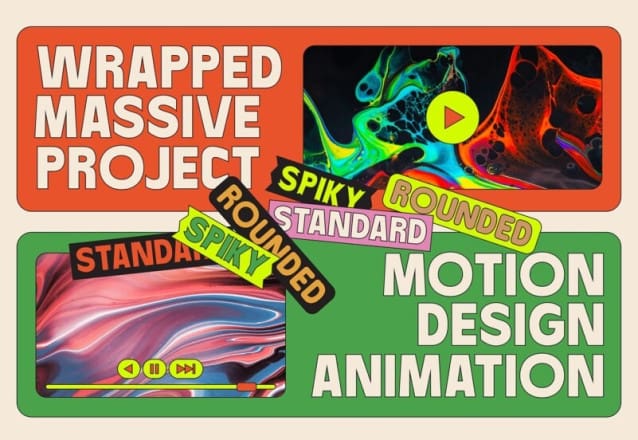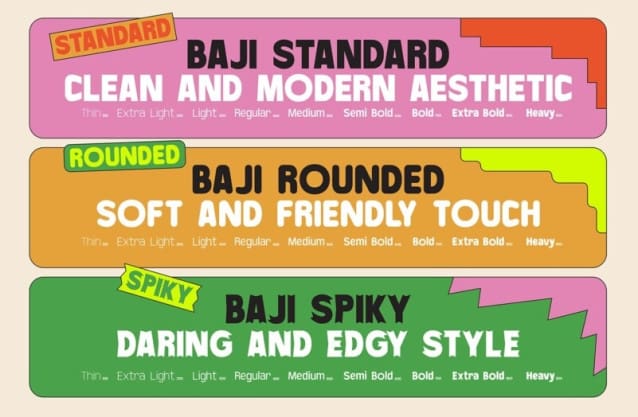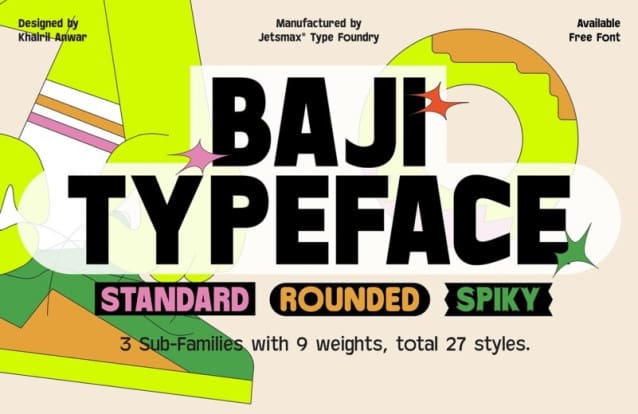
Baji Typeface Family
Baji Typeface Family is a versatile sans-serif typeface that offers three distinct sub-families: standard, rounded, and spiky. With its nine weight variations, it provides a wide range of options to suit different design needs.